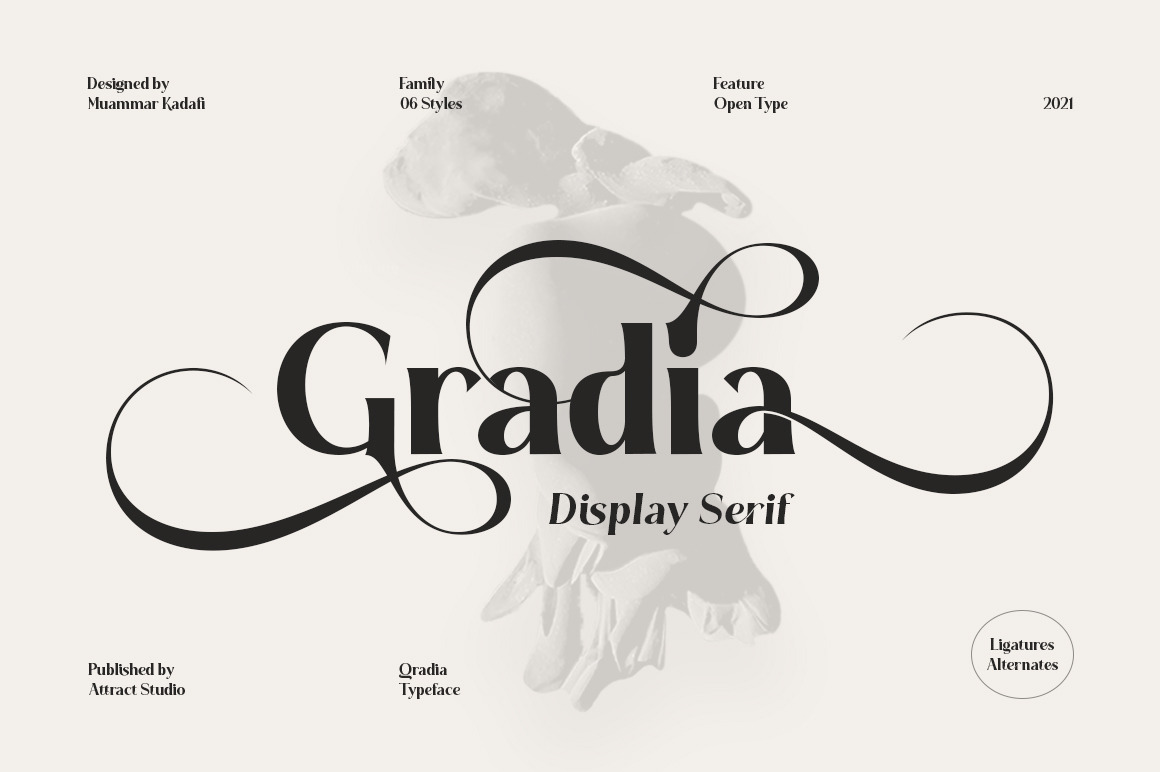
Gradia is a serif font in the form of a unique & elegant typographic design. very suitable for making your choice of design work from invitation cards to magazines, logos, branding, signage and many other creative projects.
Gradia features OpenType 765+ glyphs, also has 270 character Alternates, 116 Ligatures that are perfect for various uses, and is also equipped with multiple language support.